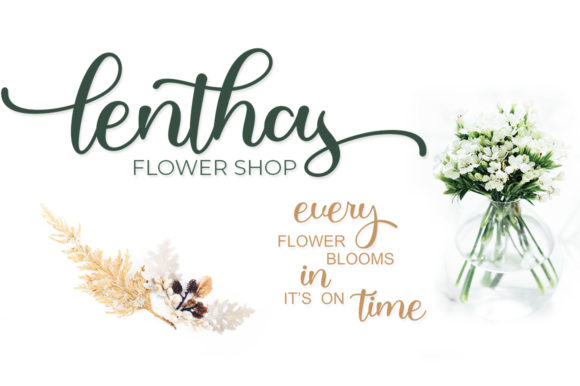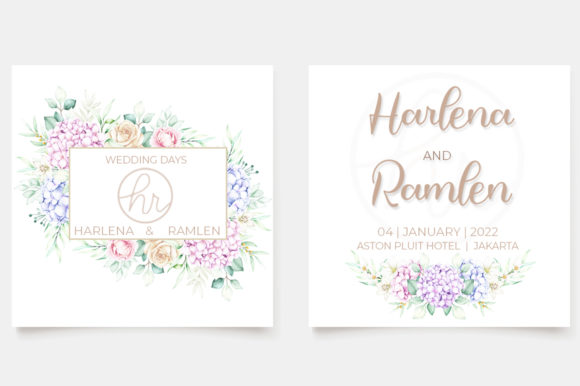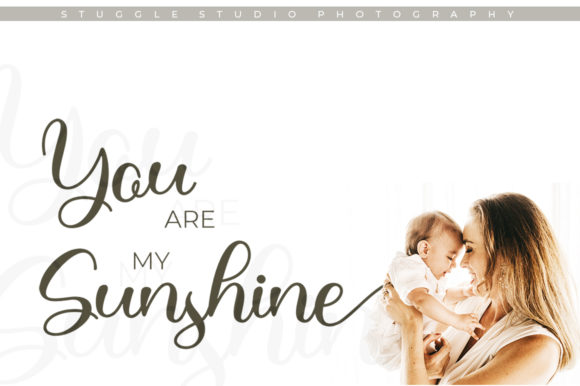
About Justin Hailey Font
Justin Hailey is a font that exudes elegance and flowing charm, making it a perfect choice for various design projects. Its stunning beauty enhances your creations, adding a touch of handwritten allure that captivates the eye.
With its flowing nature, Justin Hailey adds a sense of grace and fluidity to your designs. Whether you’re working on invitations, branding materials, social media graphics, or any other project, this font elevates each creation with its effortless beauty.
Justin Hailey’s PUA encoding allows easy access to all of its glyphs and swashes, empowering you to explore a wide range of creative possibilities. Unlock its vast potential, and let your imagination run wild as you craft unique and captivating compositions.
The font’s varying baseline ensures a dynamic and lively typographic experience, giving your designs a sense of movement and vitality.
The smooth lines of Justin Hailey create a mesmerizing visual experience, adding an artistic flair that enhances the overall appeal of your designs.
Justin Hailey maintains its classy calligraphic influences while embracing a contemporary and fresh feel. This versatility allows it to harmonize with various design themes, making it a valuable asset for your creative endeavors.
Incorporating Justin Hailey into your designs allows you to explore endless creative possibilities. Its elegance and stunning alternates serve as a canvas for your imagination, empowering you to create visually striking and captivating designs.
Moreover, Justin Hailey’s legibility ensures that your message is conveyed with clarity and impact. This makes it a font that not only looks beautiful but also effectively communicates your ideas and sentiments.
In summary, Justin Hailey is more than just a font; it’s an exquisite masterpiece that enhances your projects. Embrace its elegance and fall in love with its flowing handwritten charm. With Justin Hailey, your designs reach new heights of beauty and allure, captivating your audience and leaving a lasting impression on all who encounter them. Let Justin Hailey be the font that elevates your creative journey, turning your projects into extraordinary expressions of grace and sophistication.